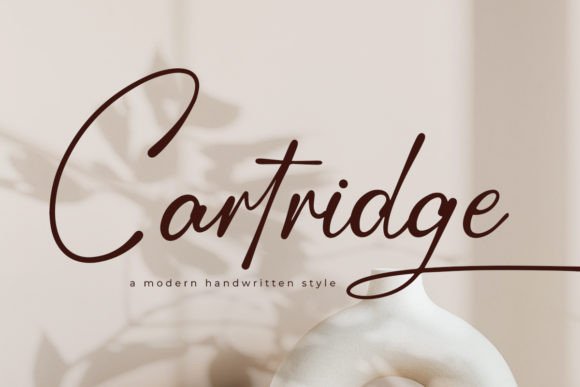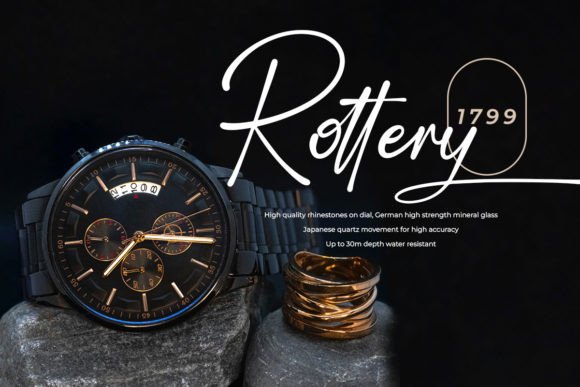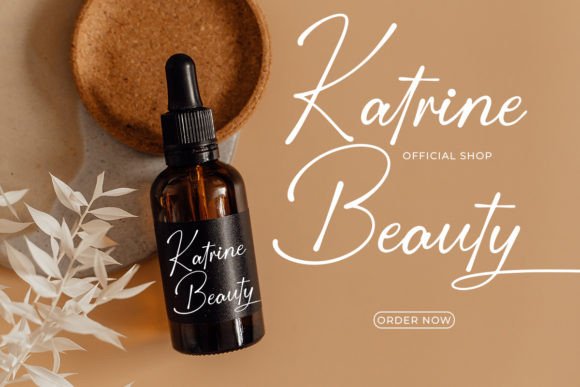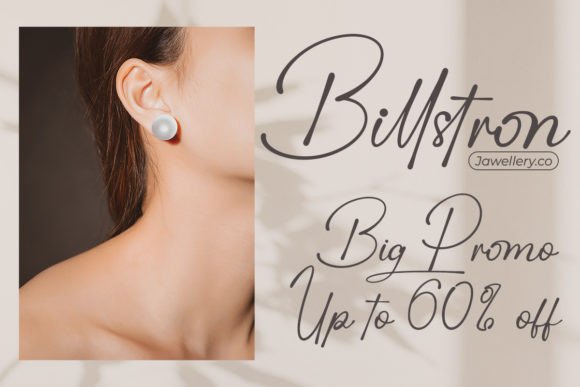
Cartridge Font: Modern Handwritten Script for Cricut & Branding
About the Cartridge Font
Presenting Cartridge Font, a unique and stylish typeface that will make your work stand out. Cartridge is a handwritten font with a modern style. The Cartridge is ideal for design, logo design, blog graphics, style quotes, wedding stationery, art prints, additional design, packaging, social media, magazines, fashion, creative branding, editorial design, and web designing.
Cartridge Font Usage Examples
Cartridge Font Example